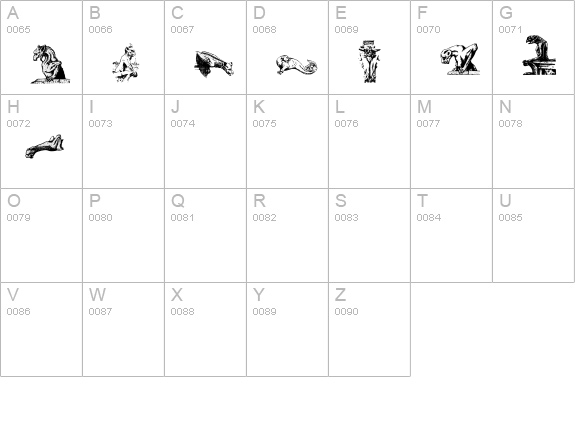
Gargoyles Font Details
The Gargoyles font is a unique and striking typeface that exudes a sense of mystery and Gothic charm. Its intricate details and ornate design make it perfect for adding a touch of sophistication to any project. The sharp edges and bold lines of this font give it a bold and powerful presence that is sure to make a statement. Best of all, the Gargoyles font is available for free download at FontsMarket.com. This means you can easily add this stunning font to your collection without having to spend a dime. Whether you're working on a digital design project, creating social media graphics, or designing a printed piece, the Gargoyles font is sure to make a lasting impression. Download it today and elevate your designs with this captivating and eye-catching typeface.